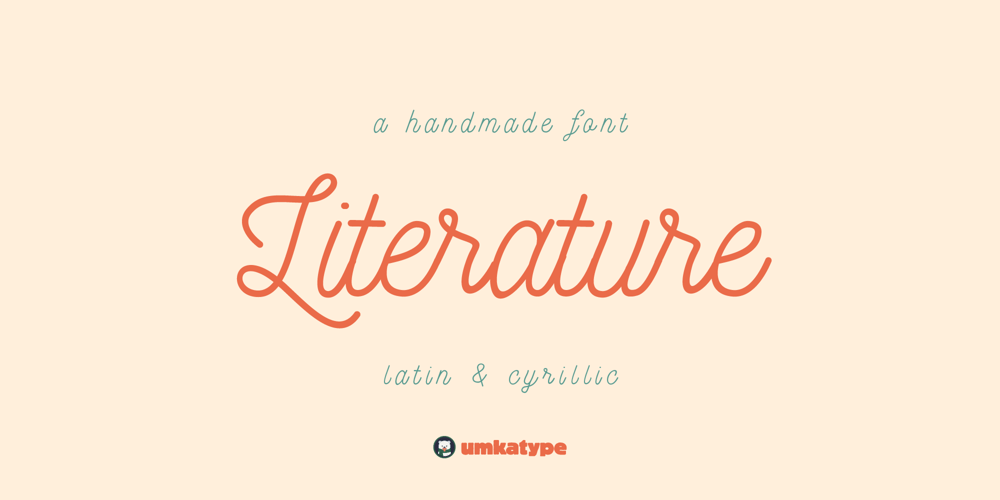
Literature Font Family was designed by Alper Çakıcı and published by Umka Type. Literature contains 1 styles and family package options. Introducing “Literature,” a contemporary cursive font crafted with meticulous attention to detail, ensuring flawless kerning for both digital and print applications. This font boasts comprehensive support for the Cyrillic language, facilitating seamless communication across multilingual platforms. Handcrafted to perfection, Literature embodies a harmonious blend of timeless proportions and modern aesthetics, setting it apart from conventional fonts in its category.With a wide language support of 89 languages, including Russian, Afrikaans, Albanian, Basque, Breton, Catalan, Croatian, Czech, Danish, Dutch, English, Estonian, Finnish, French, German, Hungarian, Icelandic, Indonesian, Italian, Latvian, Lithuanian, Norwegian, Polish, Portuguese, Romanian, Slovak, Slovenian, Spanish, Swedish, Turkish, Welsh, and many more, Literature ensures that your message resonates globally with clarity and elegance.